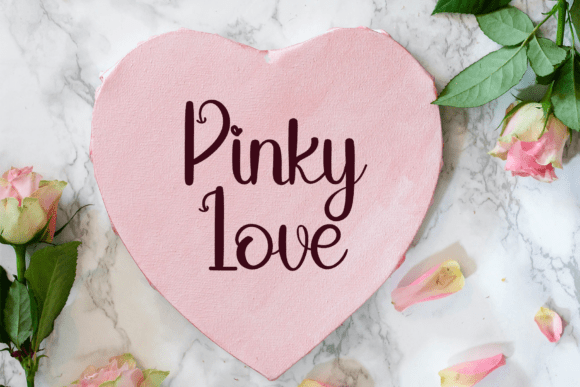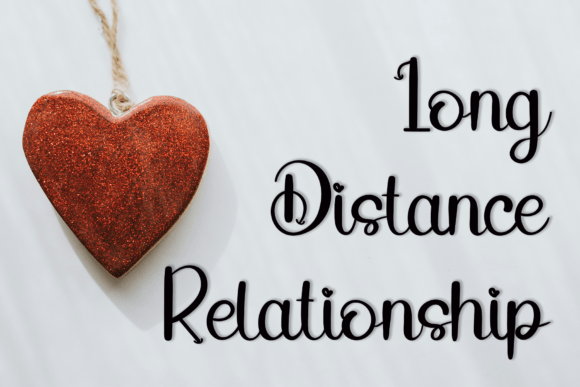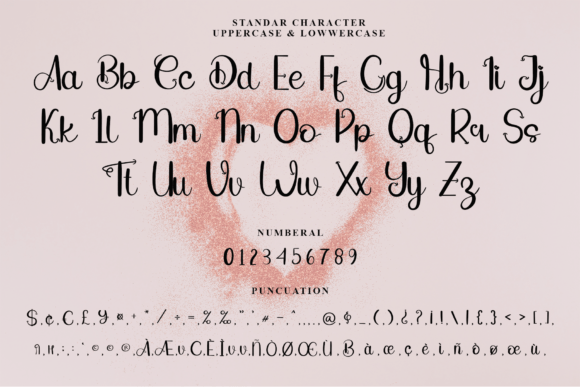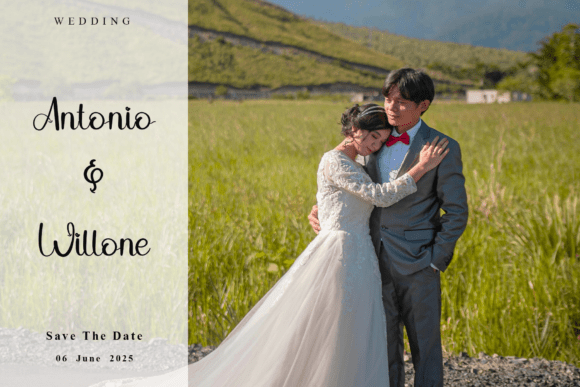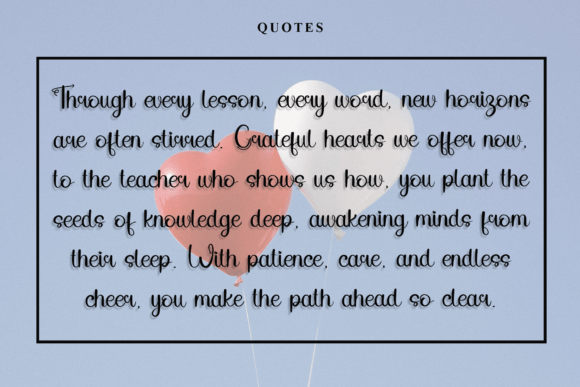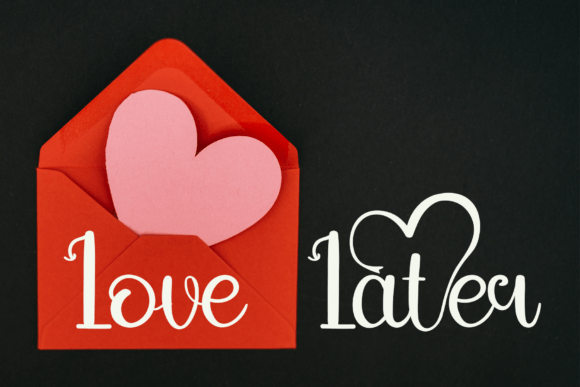
Introducing Heart Font: The Simple Handwritten Font for a Natural Touch
Are you looking for a font that can add a personal touch to your designs? Look no further than Heart Font, a simple handwritten font that is versatile and easy to use. With its natural and effortless feel, Heart Font is perfect for a wide range of applications, from greeting cards to headlines, and is sure to make your next project stand out.
What is Heart Font?
Heart Font is a beautifully crafted handwritten font that is designed to be simple, yet effective. Its clean lines and effortless flow make it perfect for adding a personal touch to any design. Whether you’re creating a greeting card, a poster, or a social media graphic, Heart Font is the perfect choice.
Key Features of Heart Font
- Simple and Handwritten: Heart Font is a handwritten font that is designed to be simple and easy to read. Its clean lines and effortless flow make it perfect for a wide range of applications.
- Versatile: Heart Font is a versatile font that can be used for a wide range of applications, from greeting cards to headlines.
- Natural and Effortless: Heart Font has a natural and effortless feel that is perfect for adding a personal touch to your designs.
Applications of Heart Font
Heart Font is a versatile font that can be used for a wide range of applications, including:
- Greeting Cards: Heart Font is perfect for creating beautiful and personalized greeting cards for special occasions.
- Headlines: Heart Font can be used to create eye-catching headlines for posters, flyers, and social media graphics.
- Social Media Graphics: Heart Font is perfect for creating social media graphics, such as Instagram posts and Facebook covers.
- Branding: Heart Font can be used to create a consistent brand identity for businesses and organizations.
Benefits of Using Heart Font
There are many benefits to using Heart Font in your designs, including:
- Unique and Personalized: Heart Font adds a unique and personalized touch to your designs, making them stand out from the crowd.
- Easy to Read: Heart Font is easy to read, making it perfect for body text and headlines.
- Flexible: Heart Font can be used for a wide range of applications, from print to digital.
Tips for Using Heart Font
Here are some tips for using Heart Font in your designs:
- Use it for Headlines: Heart Font is perfect for creating eye-catching headlines that grab attention.
- Pair it with Other Fonts: Heart Font can be paired with other fonts to create a unique and interesting contrast.
- Experiment with Colors: Heart Font looks great in a variety of colors, so don’t be afraid to experiment and find the perfect color for your design.
Heart Font is a simple handwritten font that is perfect for adding a natural and effortless feel to your designs. With its versatility and ease of use, Heart Font is sure to become a favorite among designers and crafters. Whether you’re creating a greeting card, a poster, or a social media graphic, Heart Font is the perfect choice.